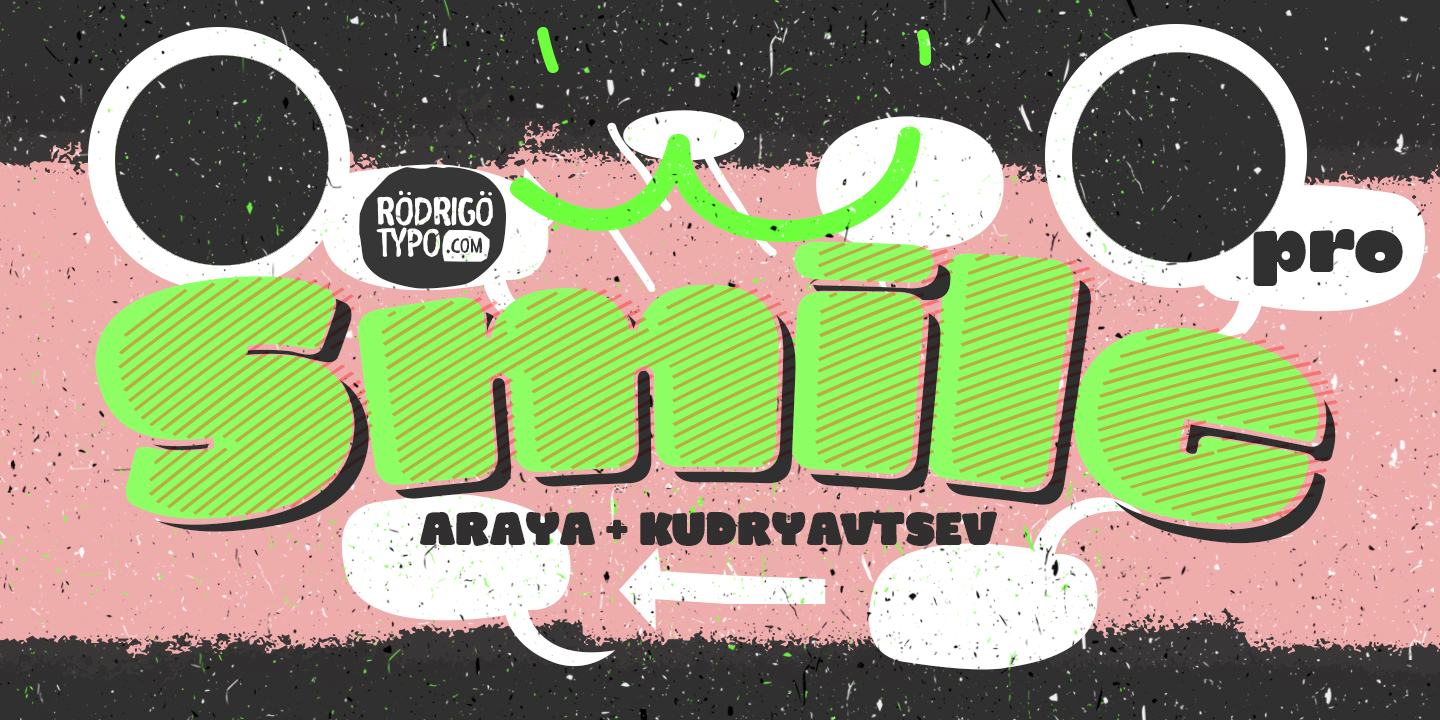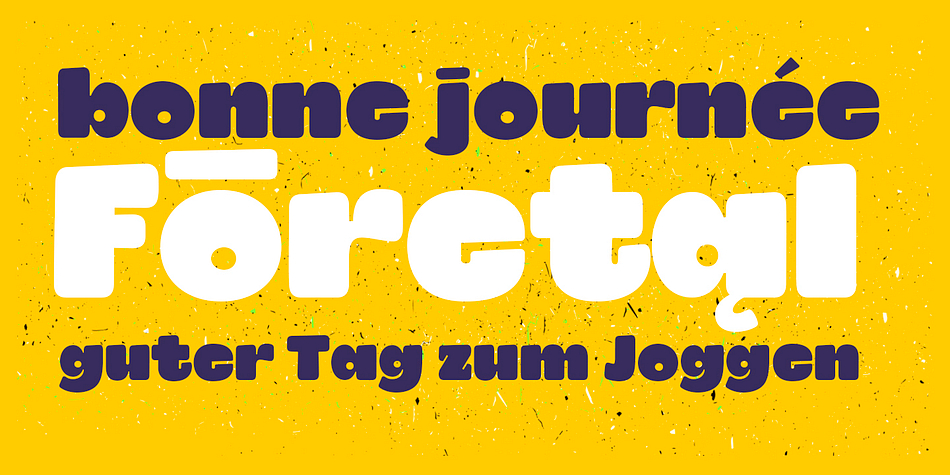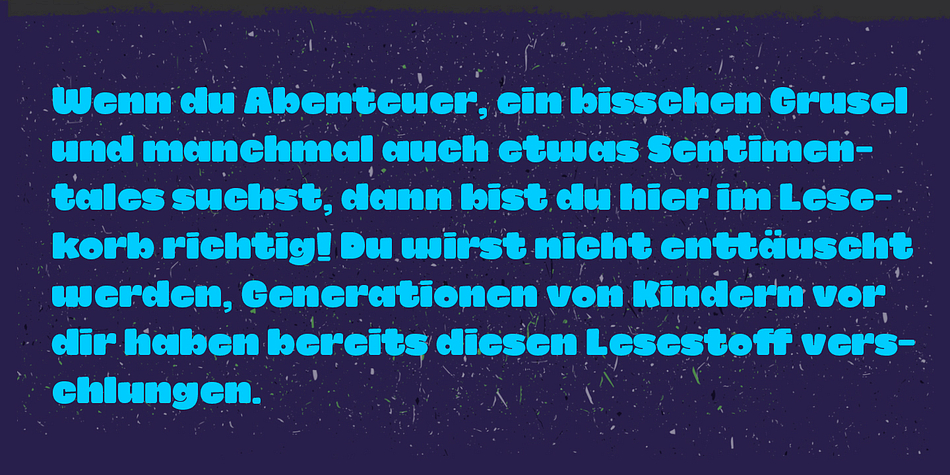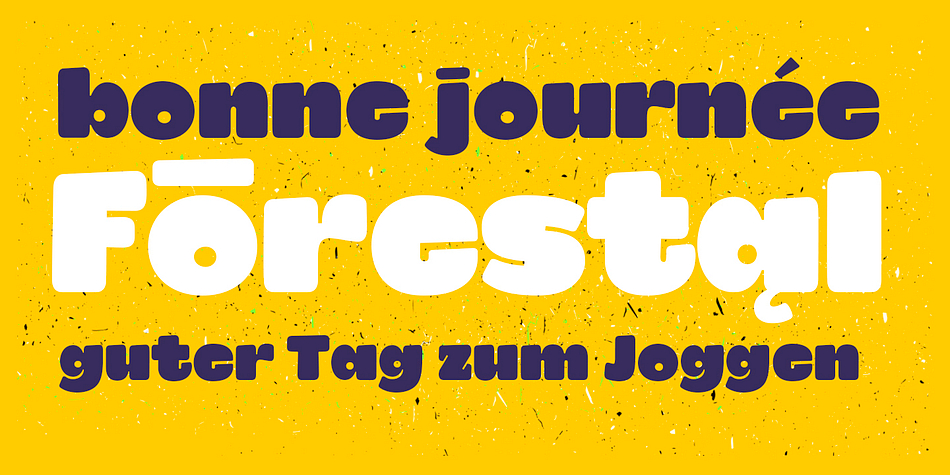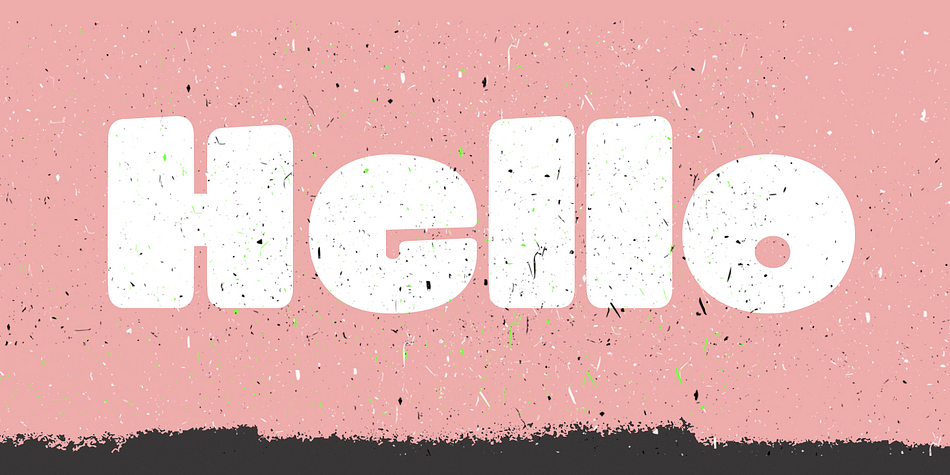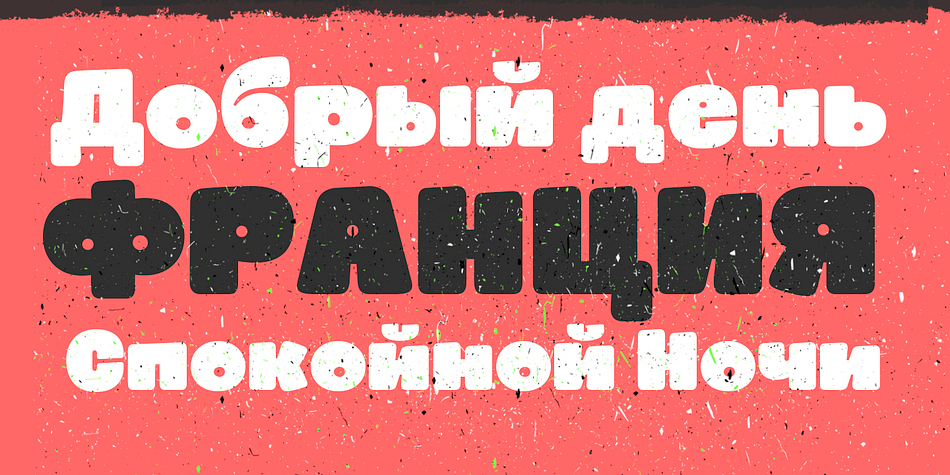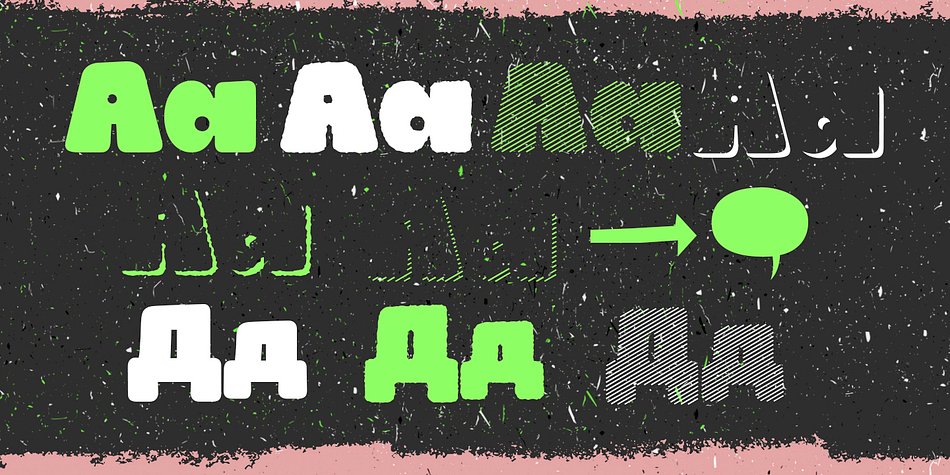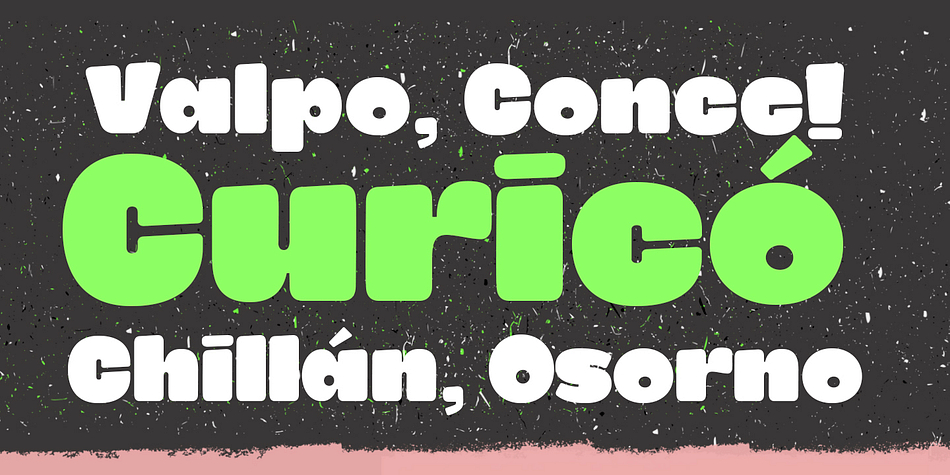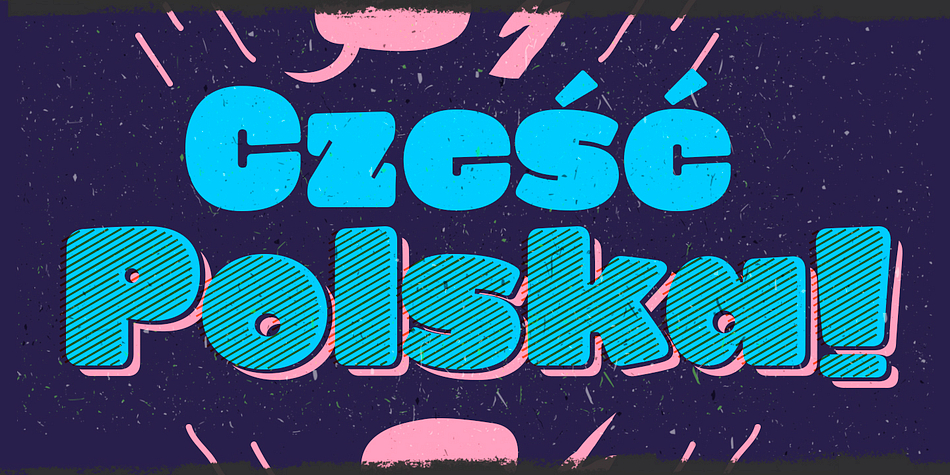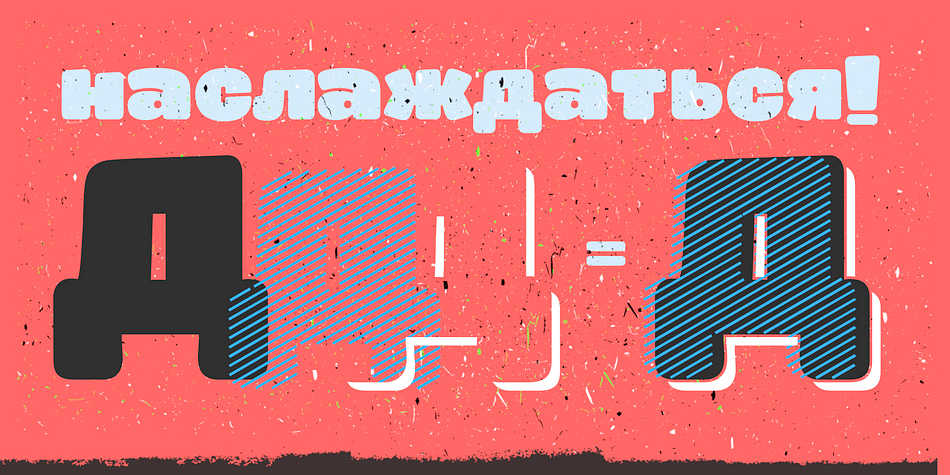
Designed by Rodrigo Araya Salas and Andrey Kudryavtsev, Smile Pro is a dingbat, display sans and kids font family. This typeface has seven styles and was published by Rodrigo Typo.
Smile Pro is a redesign of Smile from 2013. This typeface contains many different styles. It is a heavy sans serif type, especillay suited for children’s titles. It contains the Cyrillic alphabet.